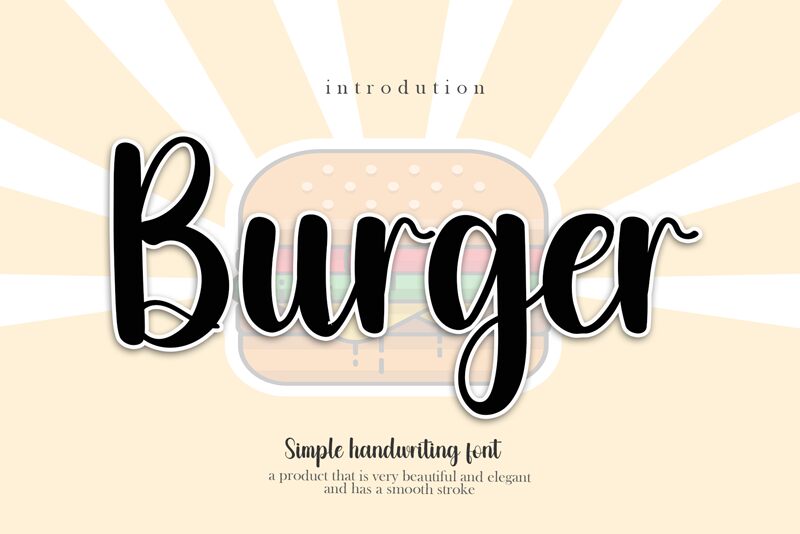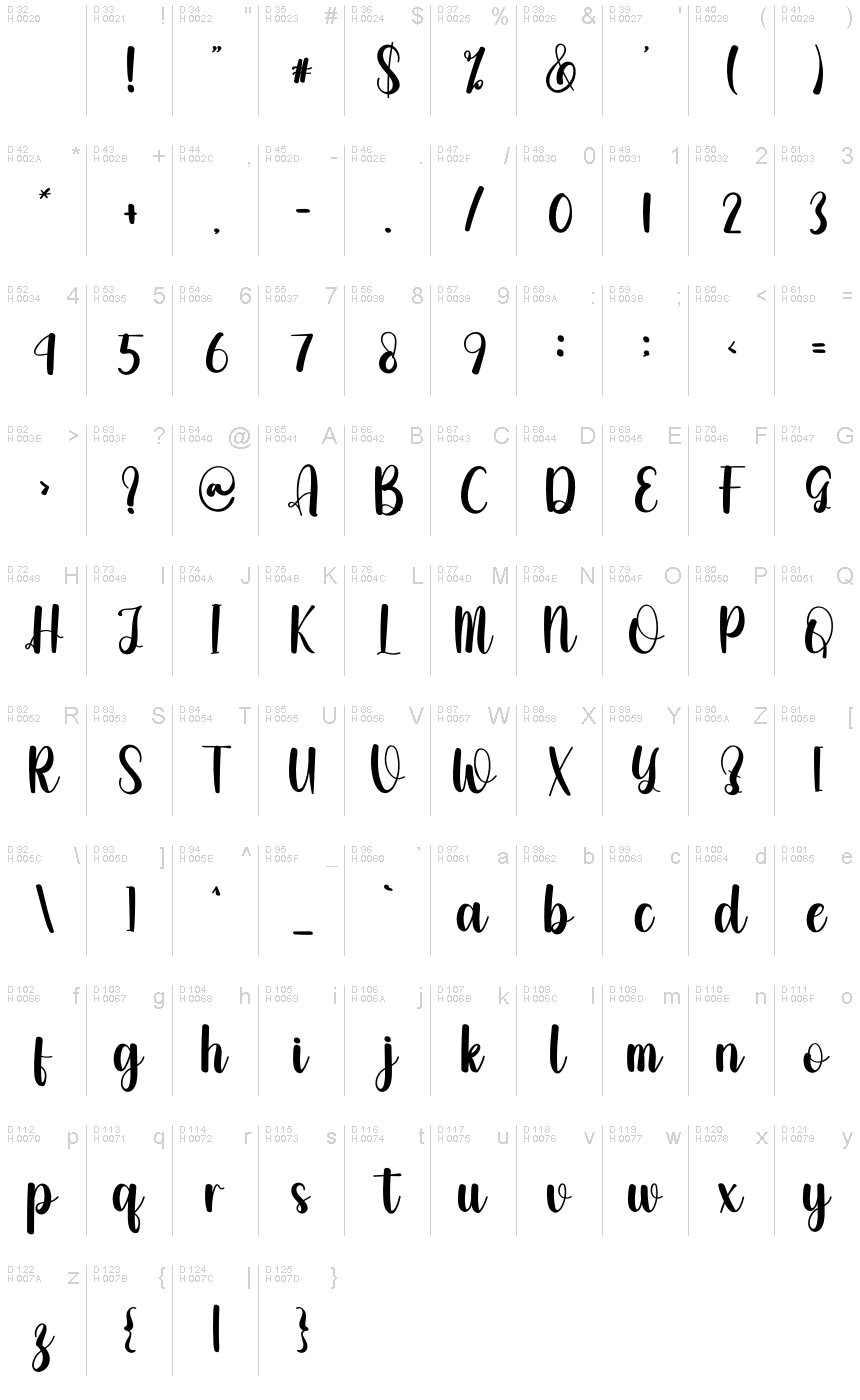
Burger
Burger, designed by Juneteenth, is a handwritten font that elegantly bridges the gap between classic calligraphy and modern flair. Its flowing lines and organic forms exude a warmth and personal touch that can enhance the character of any project. Perfect for when you desire a touch of sophistication without sacrificing an approachable, friendly vibe.
With its stylish bends and curves, Burger flourishes in creative applications such as personalized stationery or unique letterheads. It also stands out in titles where its casual elegance can capture attention while remaining inviting. This font's charm lies in its ability to make any text appear thoughtfully crafted, making it ideal for branding, packaging design, or any context where a handcrafted feel is desired.